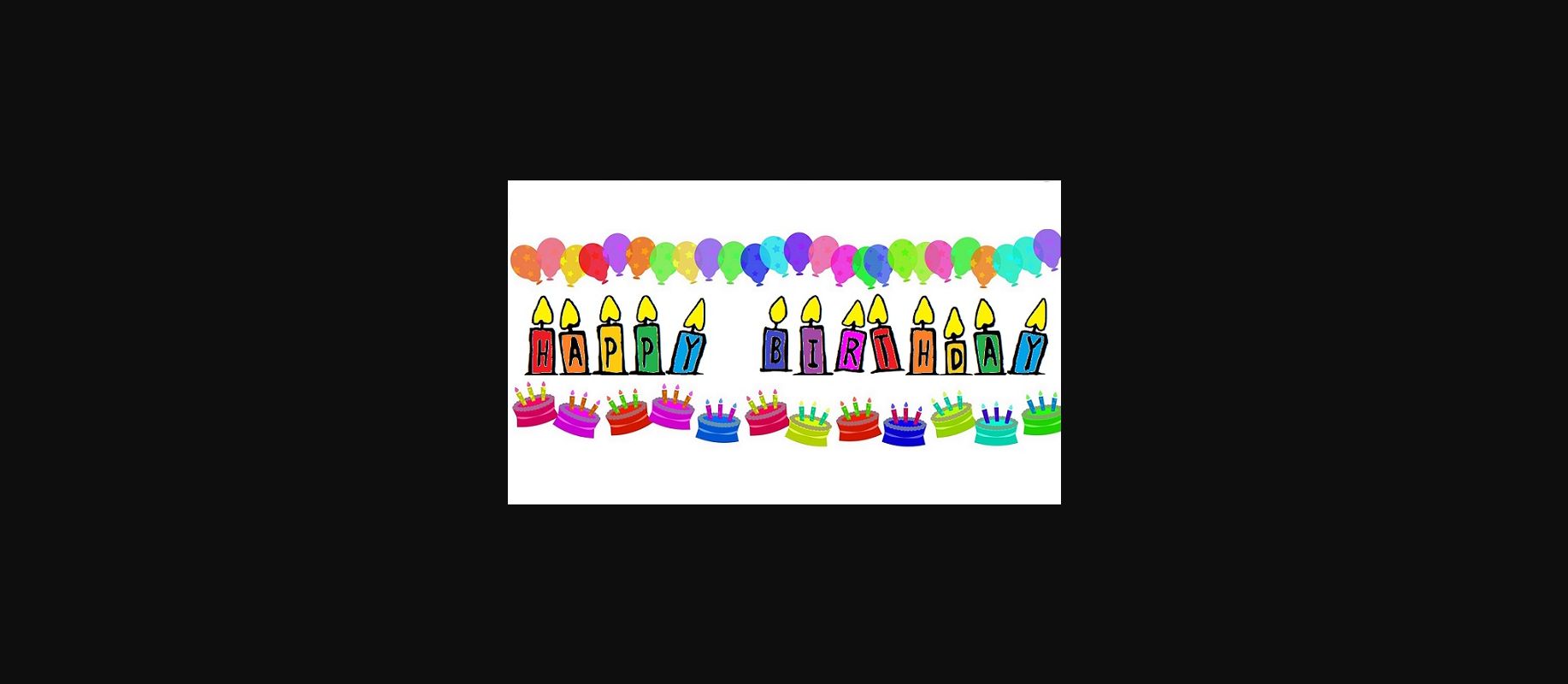
About Happy Birthday Font
Happy Birthday is a lovely and whimsical decorative font with a playful charm. Get inspired by its candle-theme and use it for any design idea that needs a unique touch.